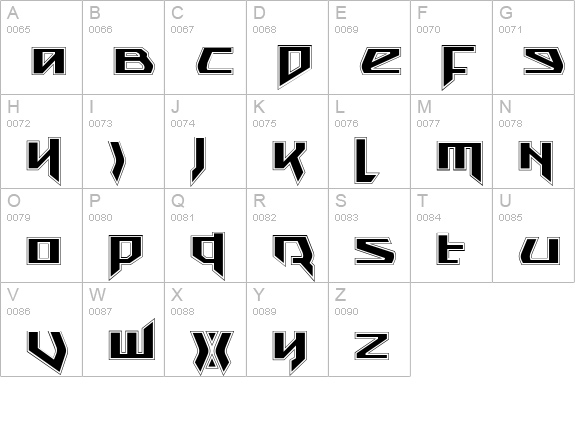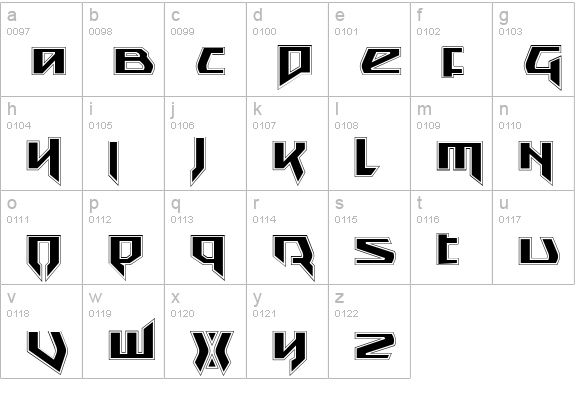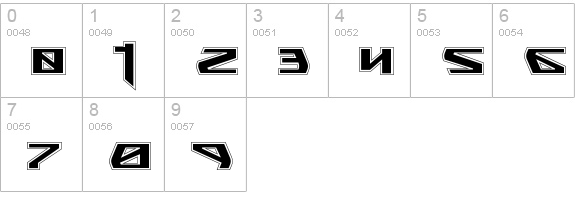
Snubfighter Academy font is a bold and dynamic typeface that exudes a sense of adventure and futuristic energy. Its sharp edges and sleek design make it perfect for titles, headers, and other attention-grabbing text. With its distinct style, Snubfighter Academy font adds a touch of sci-fi flair to any project. Best of all, Snubfighter Academy font is completely free to download at FontsMarket.com. Whether you're working on a science fiction novel, a gaming project, or simply looking to spice up your designs, this font is a fantastic choice. Add a touch of excitement and intrigue to your work with the unique and eye-catching Snubfighter Academy font.